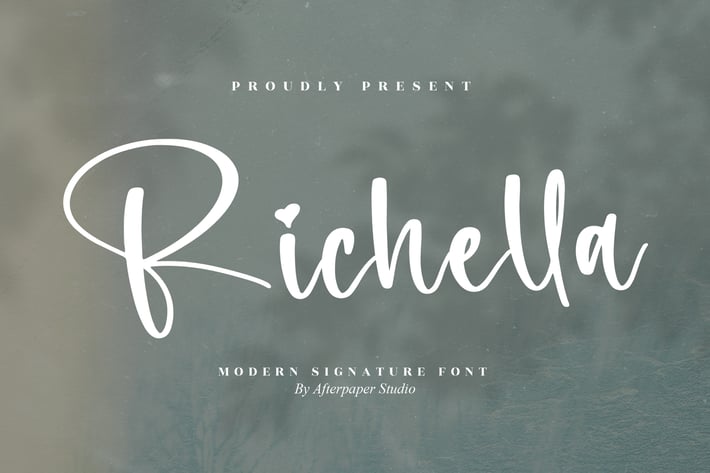
Richella Modern Signature Font
Richella is a modern signature font with smooth curves, clean strokes, and a soft handwritten elegance. Its contemporary flow makes it perfect for personal branding, lifestyle visuals, and sophisticated social media designs that need a warm, stylish signature touch.
Modern signature script with smooth, rounded strokes
Clean, elegant letterforms ideal for logos and name marks
Soft handwritten feel with a refined, contemporary vibe
Great for digital branding and premium printed materials
Personal branding & logo signatures
Lifestyle, beauty, and wellness branding
Social media posts & inspirational graphics
Packaging, labels, and boutique product design
Invitations, greeting cards, and stationery
Elegant posters & editorial layouts
Soft modern signature style for warm, stylish branding.